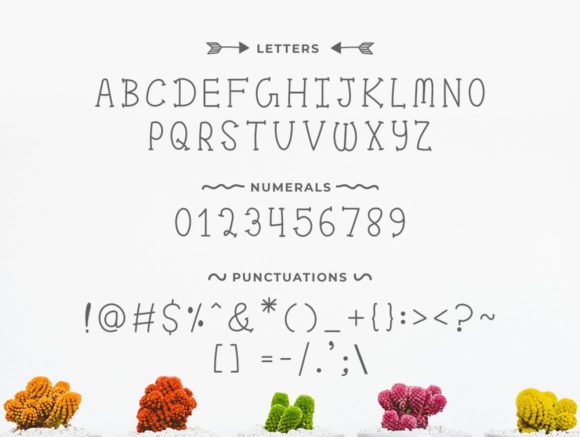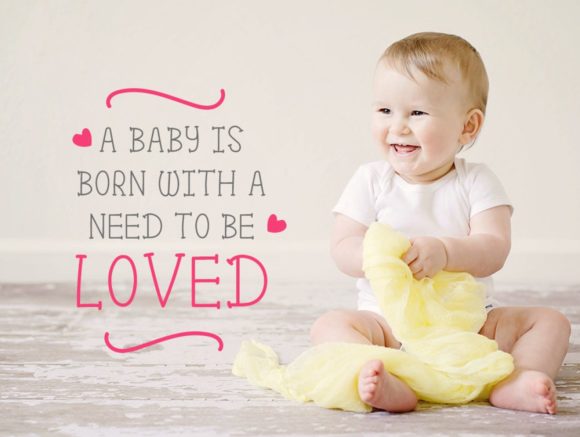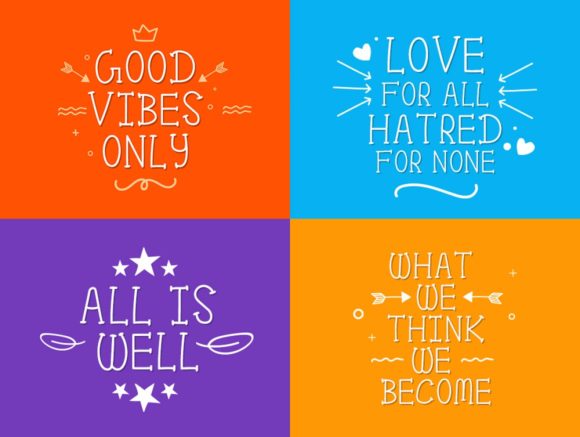
Introduction to Pom Pom Font
Remember the moment when you finally stumbled upon the perfect font for your creative project? The one that brings your design to life and gives it that extra special touch? For many designers, that moment is a rush of excitement and a sense of accomplishment. And for those who’ve worked with the Pom Pom Font, that moment is even sweeter.
This adorable handwritten font has captured the hearts of designers worldwide with its classic, friendly feel. The Pom Pom Font is a treasure trove of creative possibilities, waiting to be unleashed on your next design project. Whether you’re working on a branding project, a blog post, or a social media campaign, this font is sure to elevate your design and leave a lasting impression.
Key Features of Pom Pom Font
- Unique, playful design with a transparent background, ideal for creative projects.
- High-quality font with precise resolution, suitable for use in both digital and print media.
- Perfect for adding a whimsical touch to designs, logos, and branding materials.
Honest Review: Pom Pom Font
I recently stumbled upon the Pom Pom Font, and I have to say, it’s a delightful addition to any designer’s toolbox. The moment I downloaded it, I was excited to see how I could incorporate it into my next creative project.
One of the things that works well about this font is its playful, whimsical feel. The transparent background makes it easy to use on top of any design element, and the high quality of the font ensures that it looks crisp and clear even at large sizes. ✨
- High-quality design: The font is well-crafted and looks professional, even when used in a variety of creative projects.
Of course, no font is perfect, and the Pom Pom Font is no exception. One potential limitation is that it may be a bit too playful for more serious or formal designs. ⚠️
Overall, I’m thoroughly impressed with the Pom Pom Font, and I think it’s a great addition to any designer’s library. Whether you’re working on a fun, creative project or just need a unique font to spice up your design, the Pom Pom Font is definitely worth checking out.
For the most effective use of the Pom Pom Font, experiment with different font sizes and styles to create visual interest. Common use cases include creating social media graphics, designing party invitations, and adding a playful touch to marketing materials.